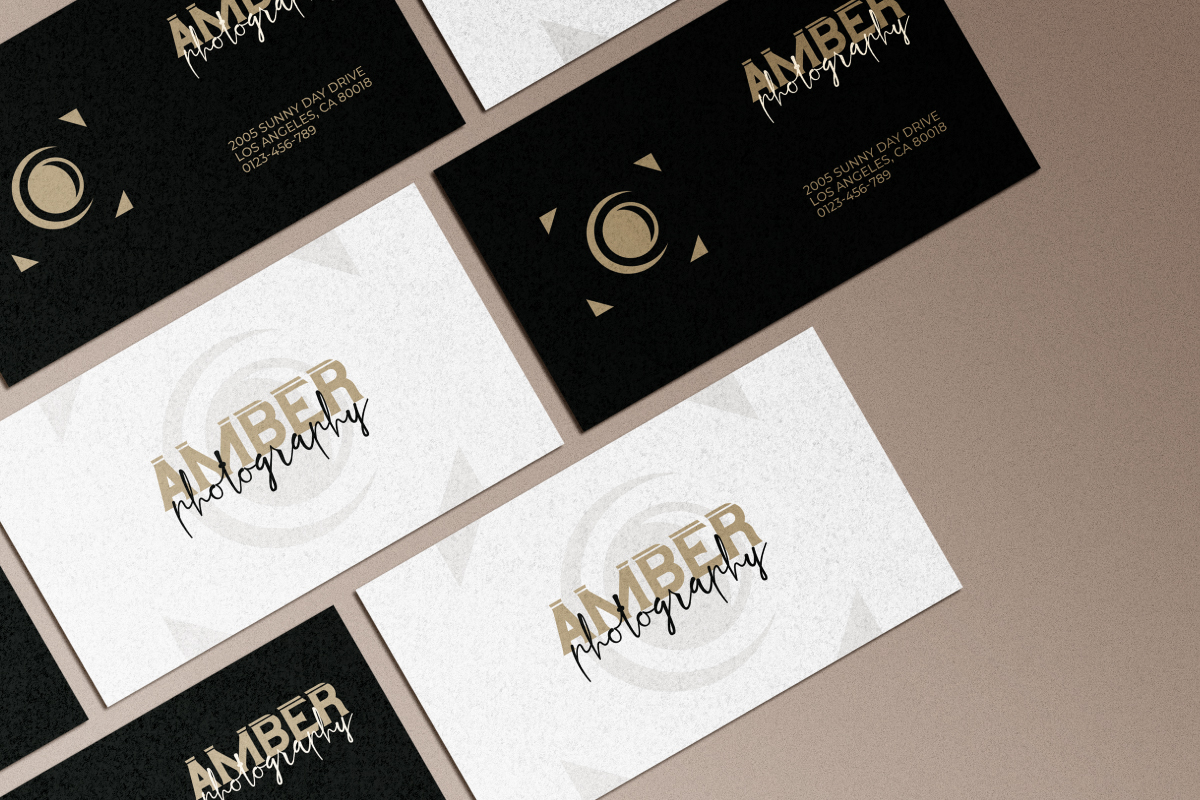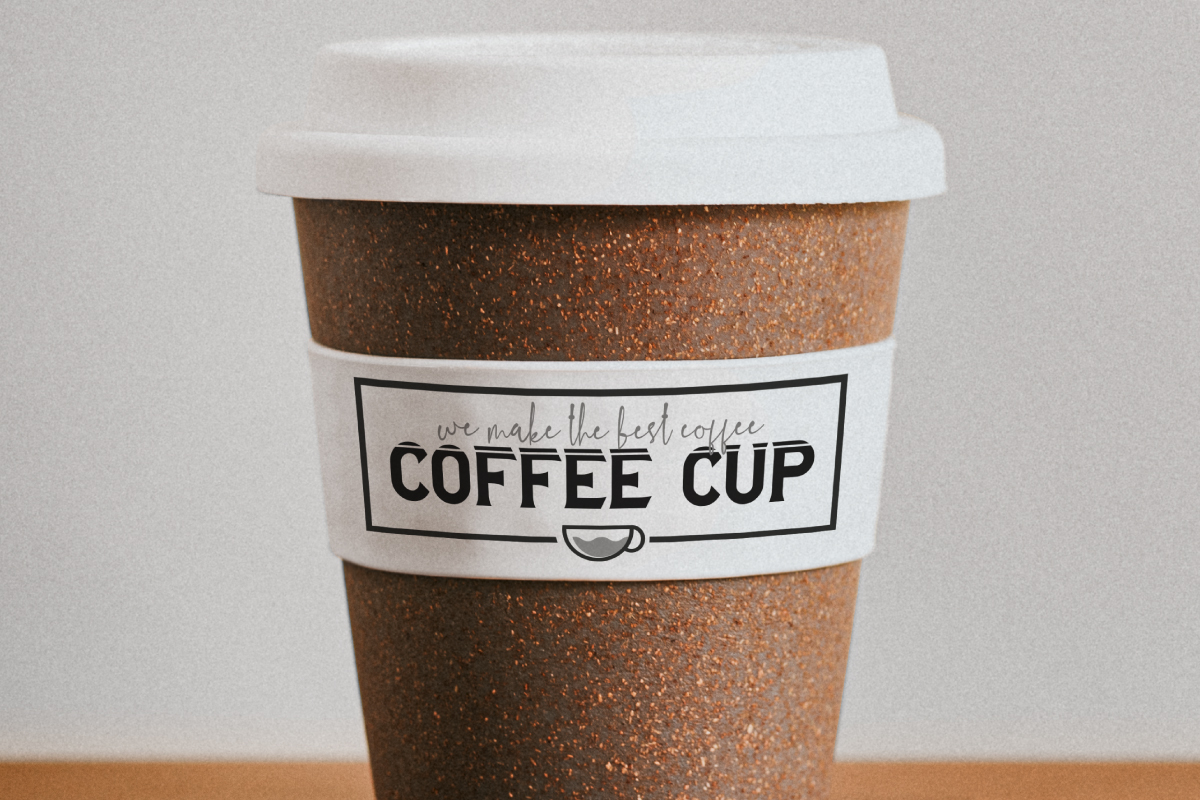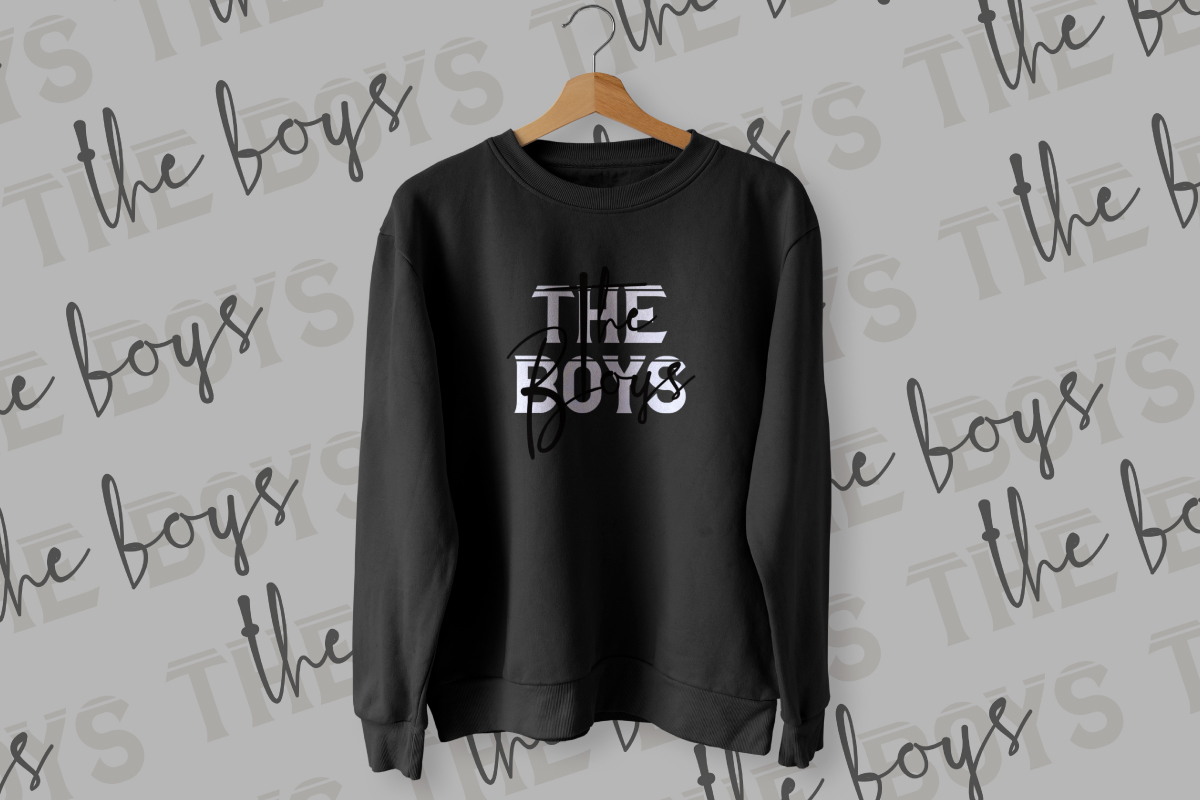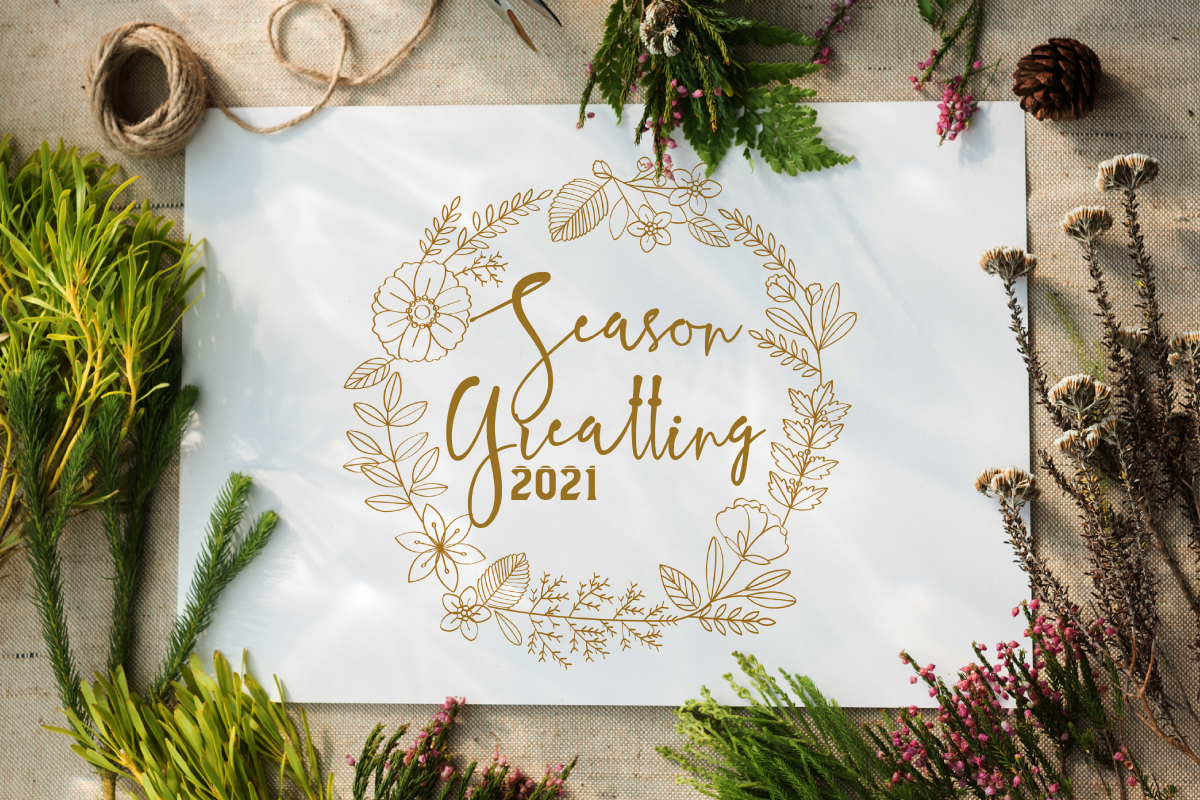
George Sean Font
George Sean Font is a stunning font duo consist of a signature script and a serif display fonts. The fonts are designed to complement each other with elegant, modern or classic style. It is perfect for business cards, invitations, product designs, weddings and more.